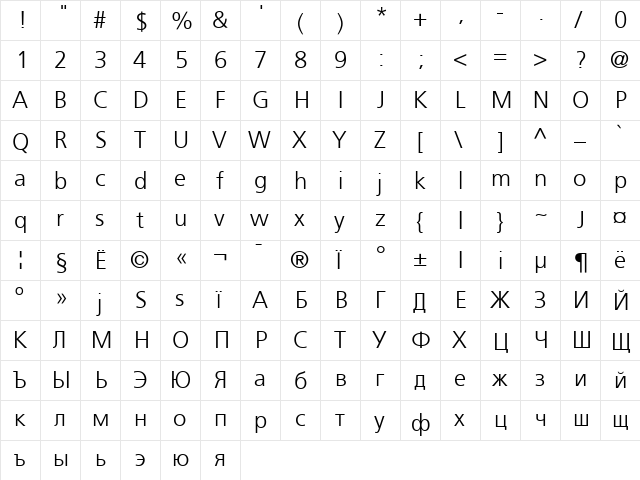
AG Foreigner Light-Plain Medium
Design Context for AG Foreigner Light-Plain Typeface
AG Foreigner Light-Plain offers clean, dependable letterforms without strong stylistic allegiance, making it a practical choice for designers who need flexibility. The delicate stroke weight brings airiness and refinement to layouts.
Pro Tip: Use AG Foreigner Light-Plain in both headline and body roles to test its range before committing to a single application.